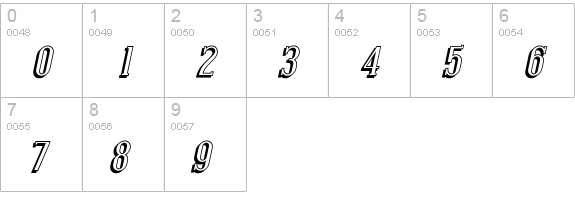
Covington Shadow Italic is a distinctive, italic variant in the Covington typeface family \xE2\x80\x94 well suited to design and typography projects.
Covington Shadow Italic font is a sophisticated and elegant typeface that exudes a sense of mystery and allure. Its slanted design gives it a subtle yet striking flair, perfect for adding a touch of drama to any project. The delicate serifs and intricate details of this font make it a versatile choice for various creative endeavors, from branding to editorial design. The best part? Covington Shadow Italic font is available for free download at FontsMarket.com. This means you can add this stunning typeface to your collection without breaking the bank. Don't miss out on the opportunity to enhance your designs with the beauty and charm of Covington Shadow Italic font. Download it today and let your creativity shine!